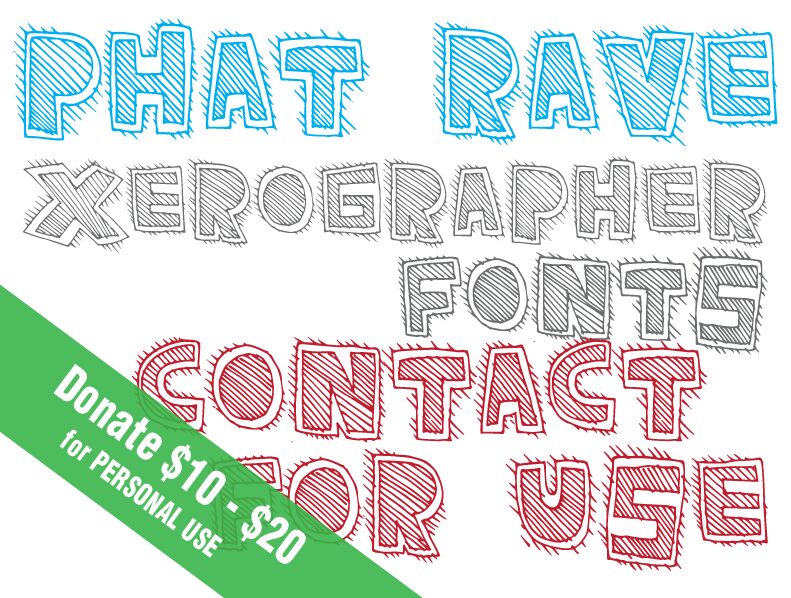
Phat Rave by Xerographer Fonts is a free cartoon display font with broad, uneven capitals and a lively hand-drawn outline. Dense diagonal hatching fills the letters, and the stray spikes around their edges give the forms a scruffy, doodled finish.
It is especially convincing on music posters, festival graphics, and club-night flyers, where the restless texture can echo loud, informal artwork. The same rough comic treatment could shape packaging and merchandise for skate, streetwear, or novelty brands that want lettering to function as part of the product illustration.
Phat Rave by Xerographer Fonts is a free cartoon display font with broad, irregular capital letters. Each letter has diagonal interior hatching within a doubled, wavering outline, with short spikes around the edges.